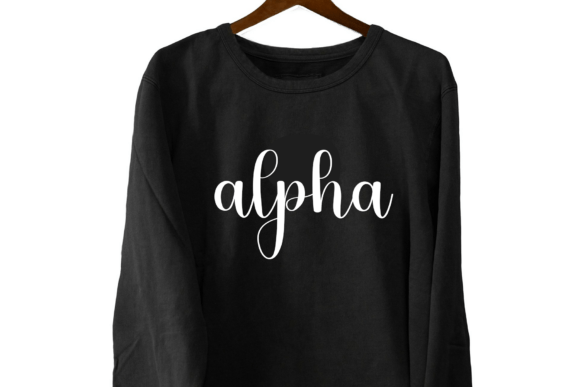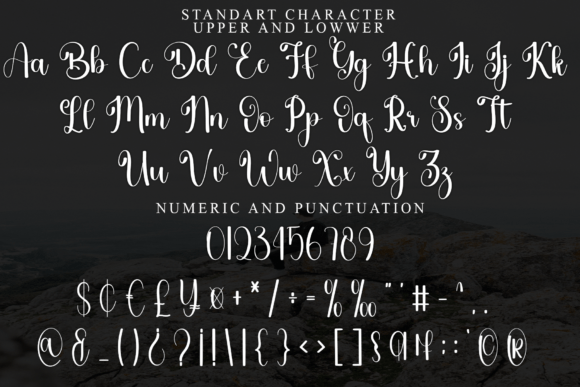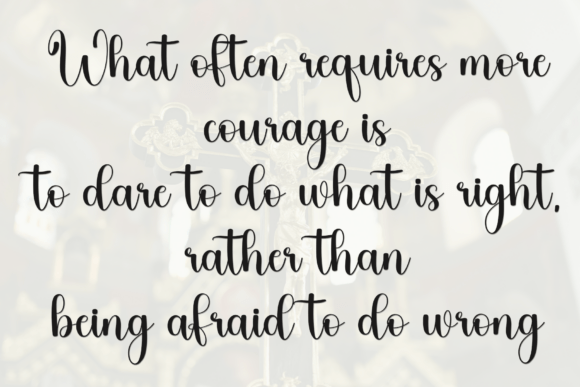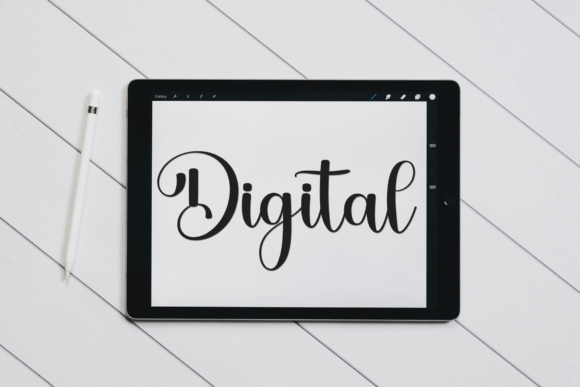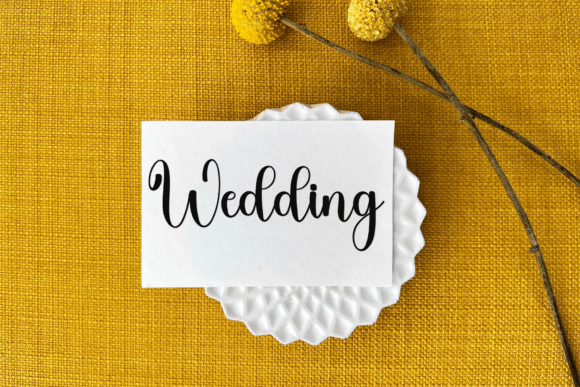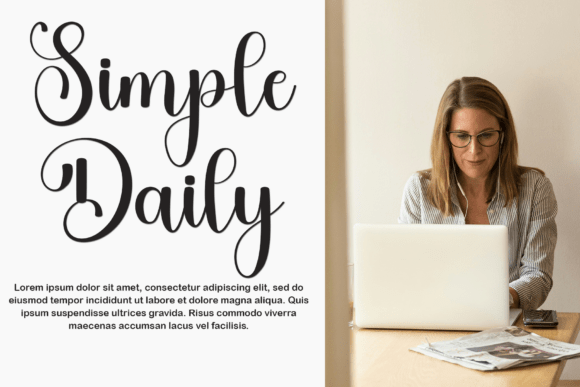
Discover the Timeless Charm of Daddy Font
Have you ever sat in front of your computer, staring at a blank canvas, searching for the perfect font to bring your design to life? It’s a moment many of us creatives have experienced. As you scroll through endless options, one font catches your eye, and suddenly, your project starts to take shape. For many designers, that font is Daddy Font.
Daddy Font is a beautiful and eye-catching font designed with a soft, unique touch. Its distinctive strokes give it a special character, making it meaningful and versatile for future use. Whether you’re working on a design project, crafting a special message, or creating something entirely new, Daddy Font is the perfect choice.
As a designer, you know the value of a well-chosen font. It can make or break the look and feel of your project. With Daddy Font, you can trust that your designs will be enhanced, making them appealing to many audiences across different artistic and creative fields.
Daddy Font Review
When I first stumbled upon Daddy Font, I was immediately drawn to its playful and quirky vibe ✨. The font family offers a range of styles, from bold and modern to elegant and vintage. The designer has done a great job of creating a cohesive look that’s perfect for anything from children’s books to retro-inspired branding.
The font’s versatility is one of its strongest assets ✨. I’ve used it for everything from headings to body text, and it always adds a touch of personality to the design. The font’s bold weights are particularly effective for creating striking headings, while the more delicate styles are great for adding a touch of whimsy to body text.
One of the main limitations of Daddy Font is its limited support for certain languages ⚠️. If you need to support languages with non-Latin scripts, you may find that the font doesn’t display correctly. Additionally, some users have reported issues with the font’s compatibility on certain operating systems.
Overall, I’m really impressed with Daddy Font ✨. While it may have some limitations, its versatility and unique style make it a great choice for designers looking to add some personality to their work. Whether you’re working on a children’s book or a retro-inspired brand, Daddy Font is definitely worth considering.
- Quirky and playful vibe
- Range of styles from bold to elegant
- Highly versatile
- Supports Latin-based languages
- May not support non-Latin scripts
- May have compatibility issues on certain operating systems